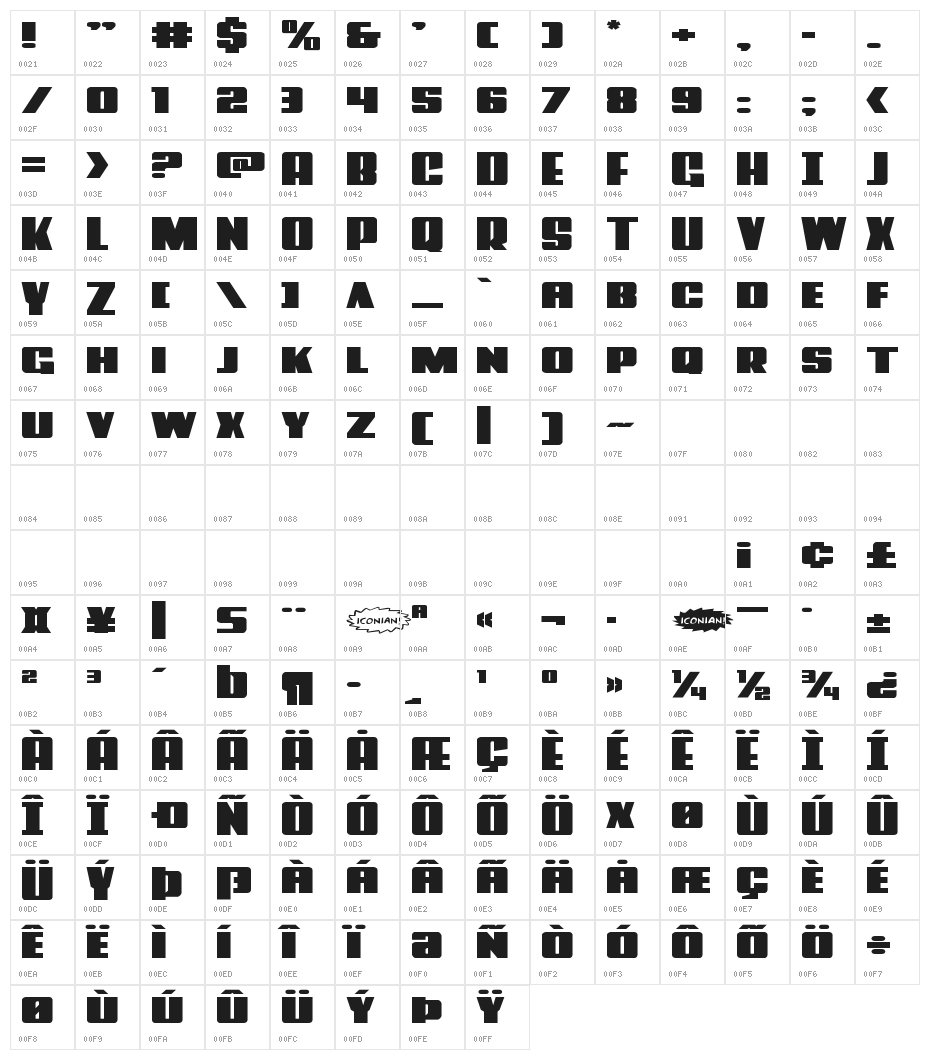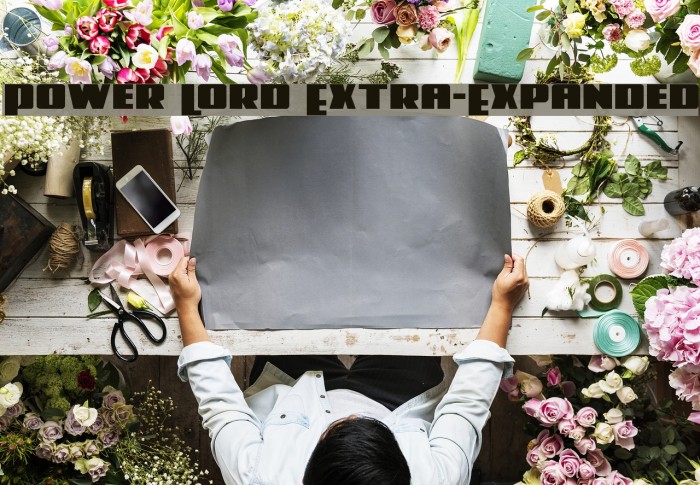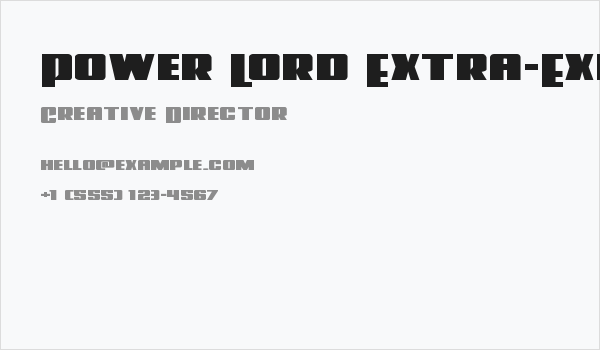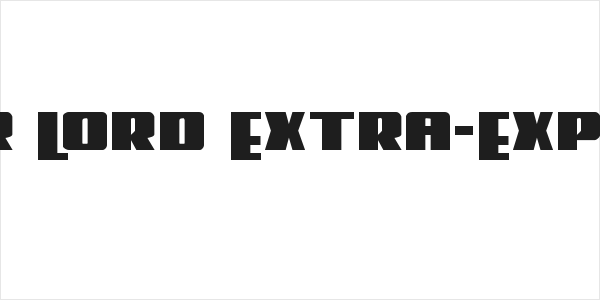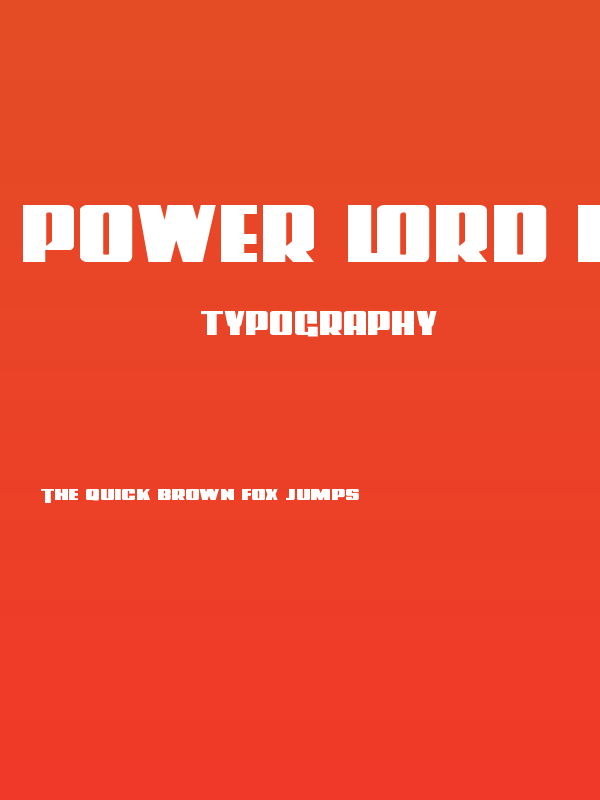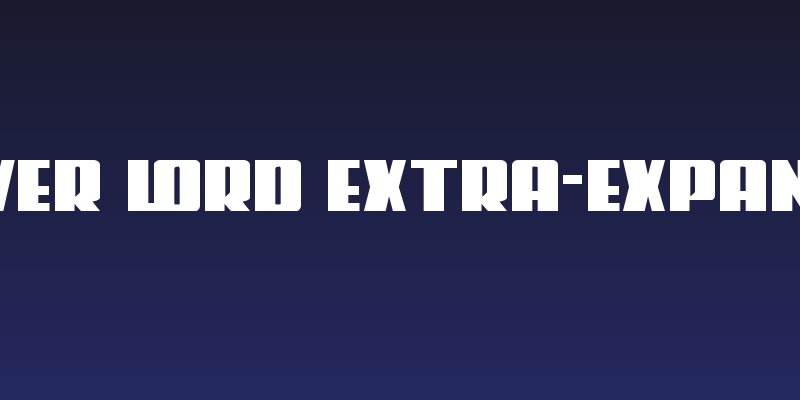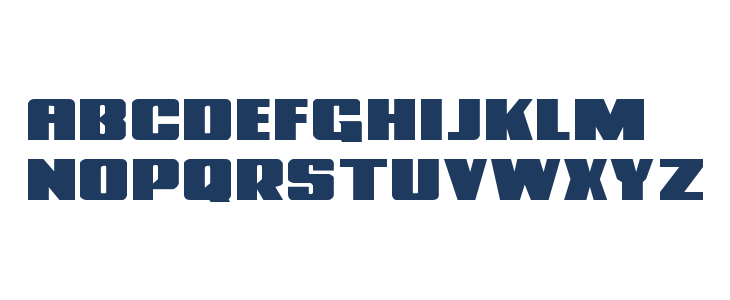
Power Lord Extra-Expanded Font
Power Lord Extra-Expanded Description
This font features a bold and powerful design with a distinctly expanded width. The characters are blocky and robust, conveying a sense of strength and impact. The uppercase letters are particularly striking, with a uniform height and wide stance that make them stand out. The numbers and special characters maintain the same boldness, ensuring consistency across all elements. The font's style is reminiscent of industrial or futuristic themes, making it suitable for projects that require a strong visual presence.
| Proposed Projects | Ideal for use in logos, posters, and headlines where a commanding presence is needed. |